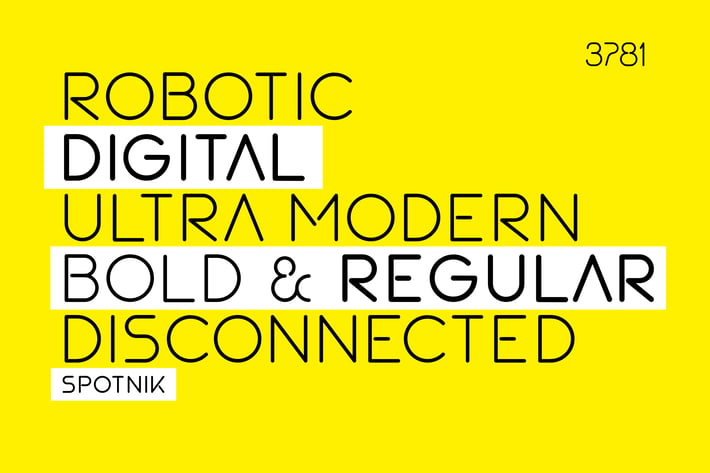
SPOTNIK - Ultra Modern Space Font
SPOTNIK - ultra modern space font
SPOTNIK is a geometric font with thin line, open connection style, reflect the modern technology and future.
Perfect for high-end article headline, space, and digital related project.
SPOTNIK is a geometric font with thin line, open connection style, reflect the modern technology and future.
Perfect for high-end article headline, space, and digital related project.